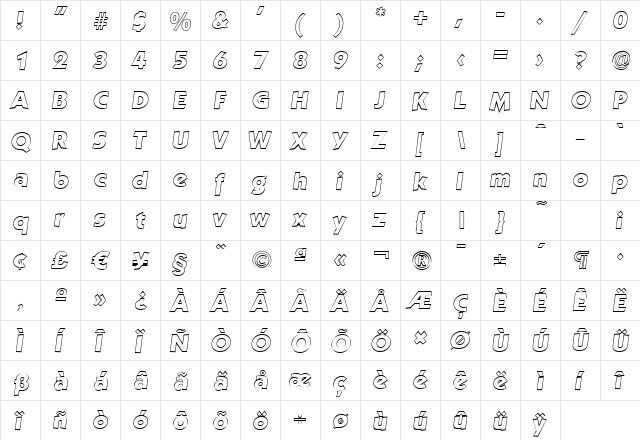
VictorBeckerOutline-ExtraBold Italic Font Preview
Design Context for VictorBeckerOutline-ExtraBold Typeface
VictorBeckerOutline-ExtraBold is built around its visual character rather than neutral utility — its distinctive forms are designed to make an impression at display sizes. Its italic angle brings a sense of urgency and motion to the letterforms. The heavy weight commands attention and anchors typographic hierarchies.
Font Pairing: Pair with a clean neutral sans-serif for body copy to let VictorBeckerOutline-ExtraBold's character lead without overwhelming the composition.
Pro Tip: Use VictorBeckerOutline-ExtraBold exclusively at display sizes — it was designed to be seen, not read at length. Let a neutral companion handle body copy.